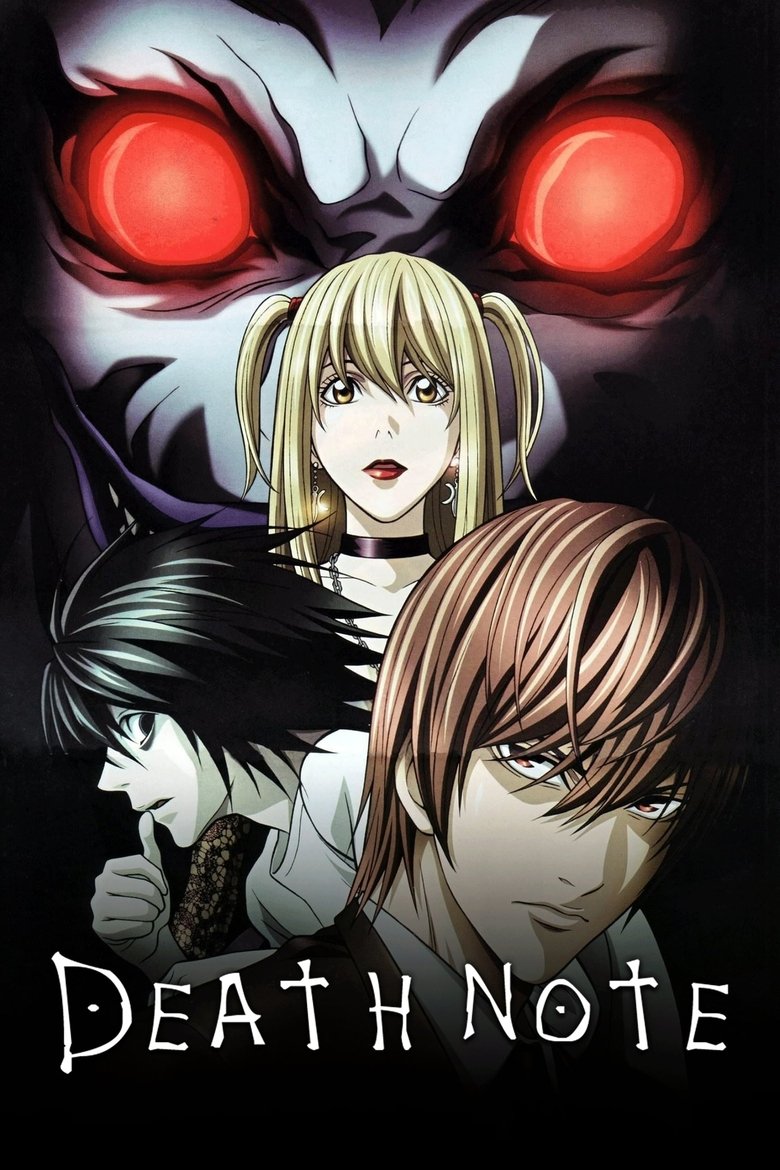
About the Death Note font
Death Note's title is a gothic blackletter. UnifrakturMaguntia recreates that ominous, notebook-of-death feel.
What font is used in the Death Note logo?+
The original Death Note logo uses custom lettering. This generator recreates the look with UnifrakturMaguntia — a free, open-license font you can style and download.